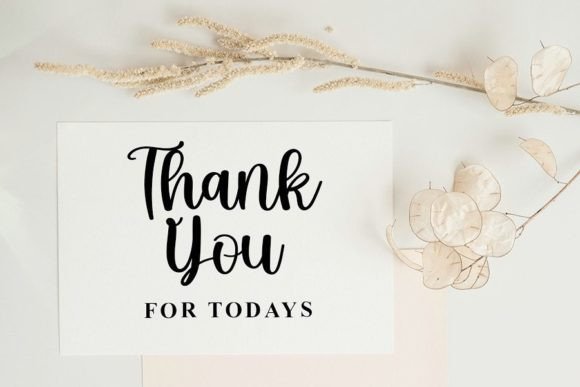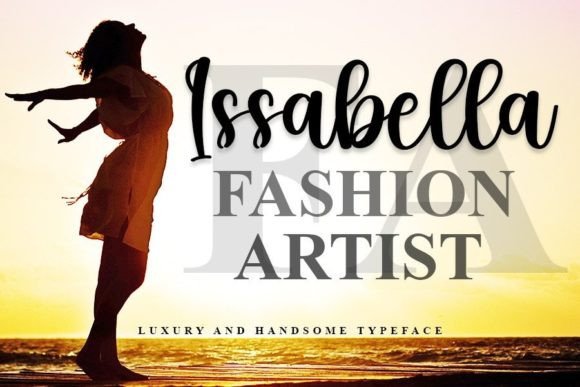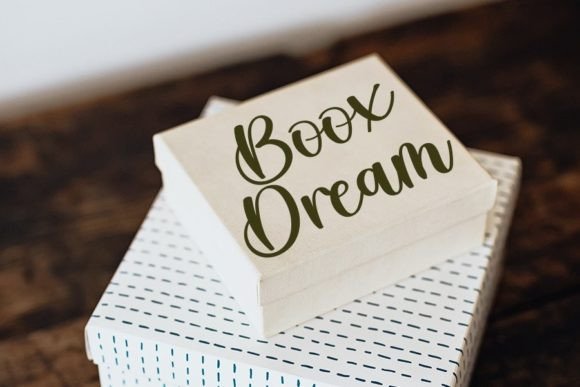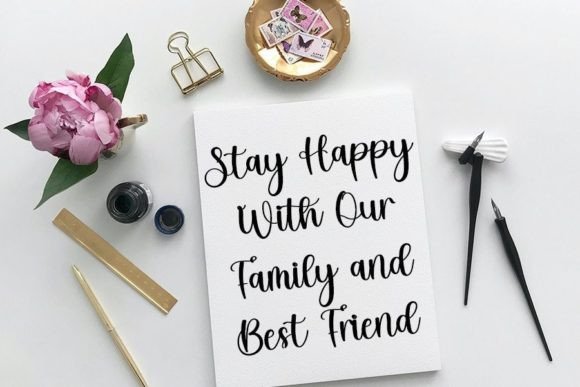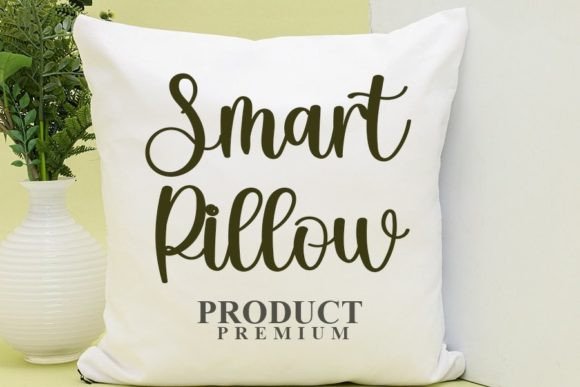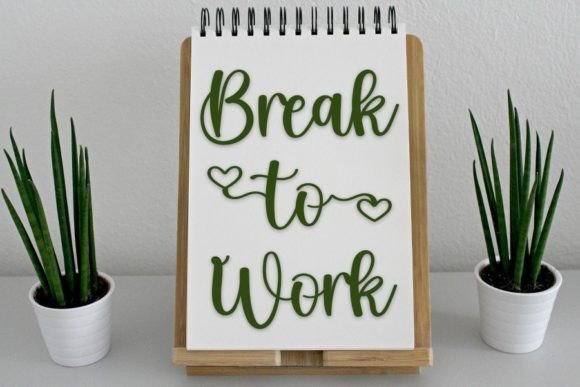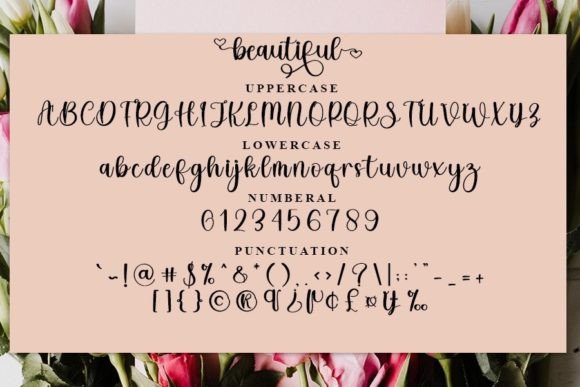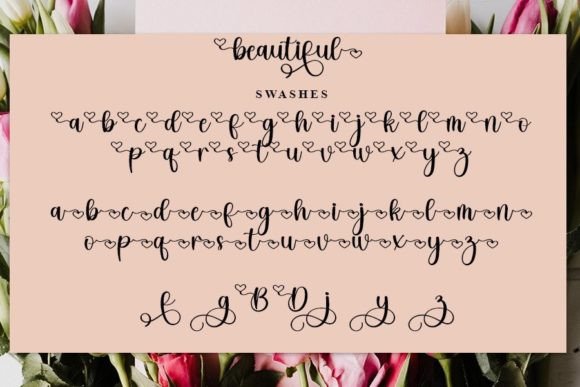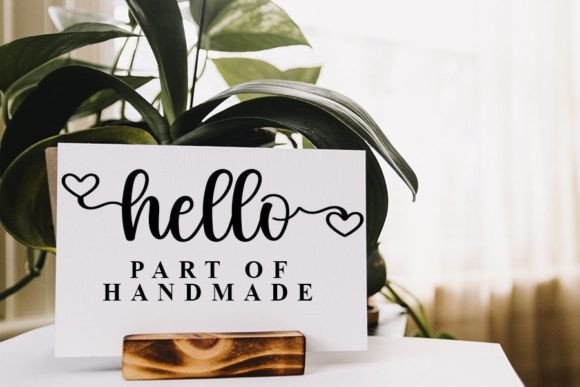
Beautiful Font
About Beautiful Font
“Beautiful” is a font that lives up to its name, embodying beauty and refinement. With its classy, elegant, and modern look, this script font is a versatile choice for a wide range of design applications. Its sophisticated style makes it perfect for logos, branding, invitations, stationery, wedding designs, social media posts, and much more.
The font’s graceful and flowing characters exude an air of elegance, making it ideal for projects that require a touch of sophistication and charm. Its versatility allows it to adapt seamlessly to different design contexts, adding a sense of refinement to your creations. Whether you’re crafting a wedding invitation, designing a logo, or creating a social media post, “Beautiful” enhances the overall visual appeal, ensuring your projects stand out.
One of the standout features of “Beautiful” is its PUA encoding. This encoding style provides easy access to a plethora of amazing glyphs and ligatures, allowing you to customize and personalize your designs effortlessly. The availability of these additional characters enhances the font’s flexibility, enabling you to create unique and visually appealing typography compositions.
Incorporating “Beautiful” into your creative projects empowers you to elevate your designs, infusing them with elegance and sophistication. Its refined style and access to diverse glyphs and ligatures make it a valuable asset for designers seeking a font that exudes beauty and versatility. Embrace the font’s elegance and let it enhance your logos, invitations, social media posts, and various other design works, ensuring they radiate a sense of timeless beauty and sophistication.